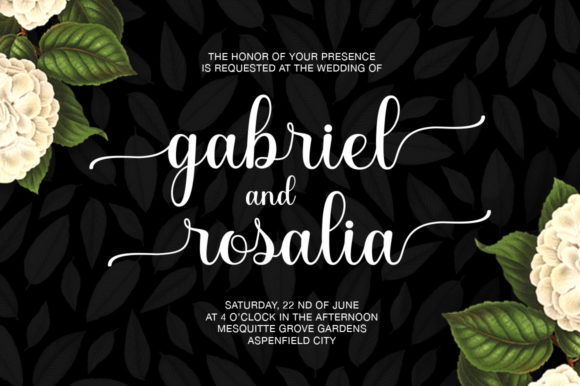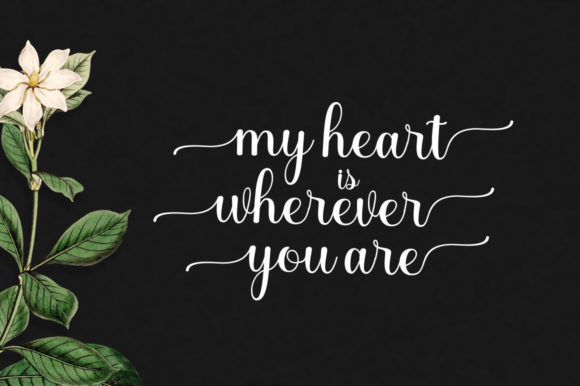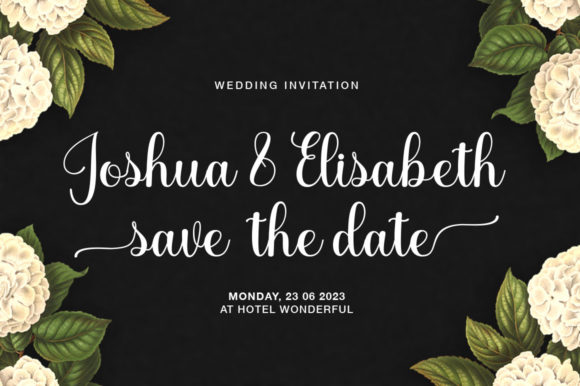
Introduction to Jonalyn Script Font
As a designer, have you ever found yourself in a moment of pure creative bliss, where the perfect font suddenly pops into your mind and elevates your entire design project? For many of us, it’s a feeling that’s hard to describe, but it’s the spark that ignites our imagination and brings our ideas to life. For me, that moment came when I stumbled upon the Jonalyn Script Font – a stunning, high-quality design resource that adds a touch of elegance to any creative project.
This beautiful script font is a must-have for designers looking to add a handwritten touch to their designs. Whether you’re working on a wedding invitation, a thank you card, or a logo, the Jonalyn Script Font is sure to impress. And with its transparent background, you can easily combine it with other design elements to create a truly unique look. Plus, with a free download available, you can access this valuable design resource without breaking the bank.
Key Features of Jonalyn Script Font
- High-quality, hand-drawn design perfect for creative projects requiring a unique touch.
- Features a beautiful, elegant script style with a subtle flair, ideal for wedding invitations, quotes, and other creative projects.
- Perfect for designers seeking a unique, high-quality font to elevate their creative project and make it stand out.
Honest Review: Jonalyn Script Font
I recently had the chance to work with the Jonalyn Script Font, and I must say it’s a lovely addition to any design resource. This high-quality script font is perfect for creating a touch of elegance and sophistication in your creative project.
Here are some of the things that work well with the Jonalyn Script Font:
- Its smooth and flowing lines make it perfect for headings and titles
- The transparent background allows for easy layering and composition
- It’s highly versatile and can be used for a wide range of design projects
- The font may not be as readable at smaller font sizes
- It’s not ideal for use in body text, as it can be quite ornate
- Some users may find the font a bit too fancy or over-the-top
Overall, I think the Jonalyn Script Font is a great addition to any designer’s toolkit. While it may not be perfect for every project, it’s a high-quality design resource that’s sure to impress.
Experiment with different font sizes and colors to create a visually appealing design. Use the Jonalyn Script Font in combination with other fonts to add depth and interest to your design.
The Jonalyn Script Font is ideal for use in invitations, posters, and social media graphics. Its elegant and refined style makes it perfect for creating a sophisticated and creative design.